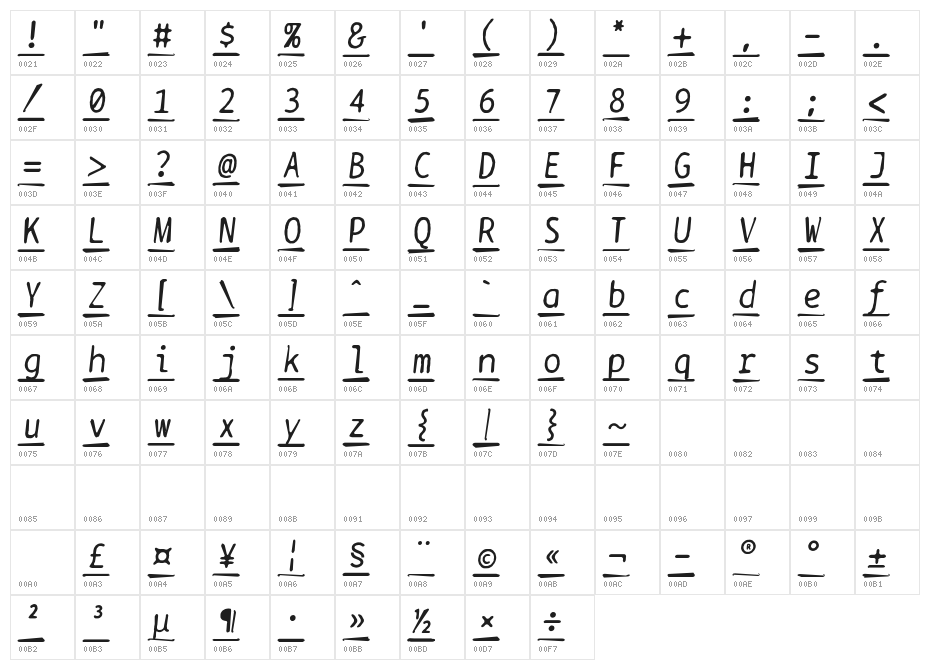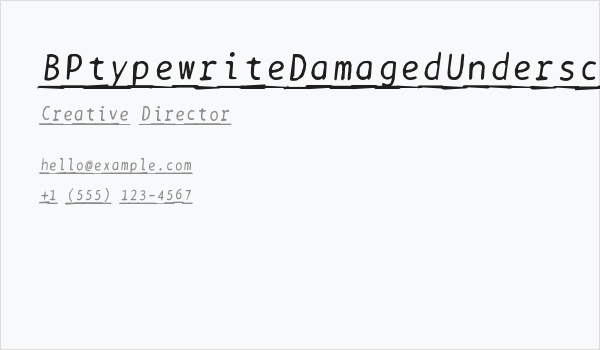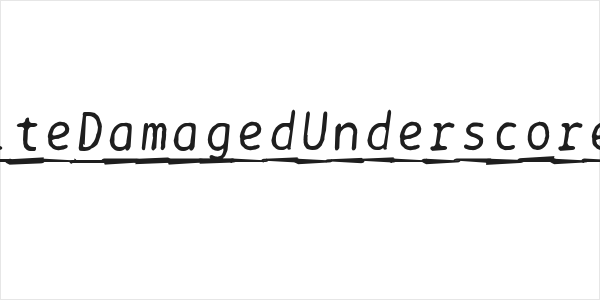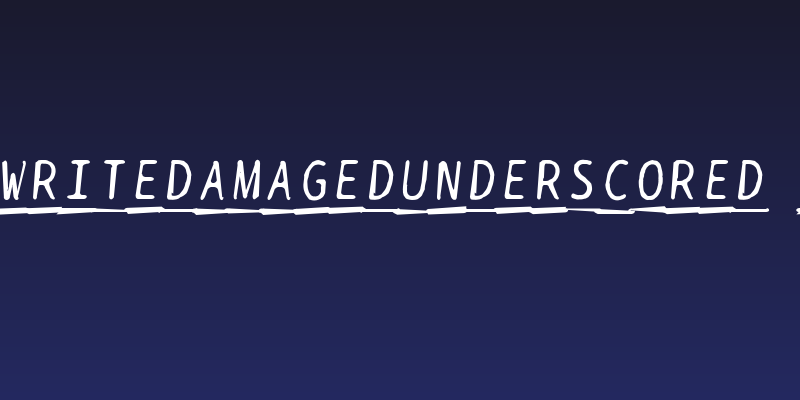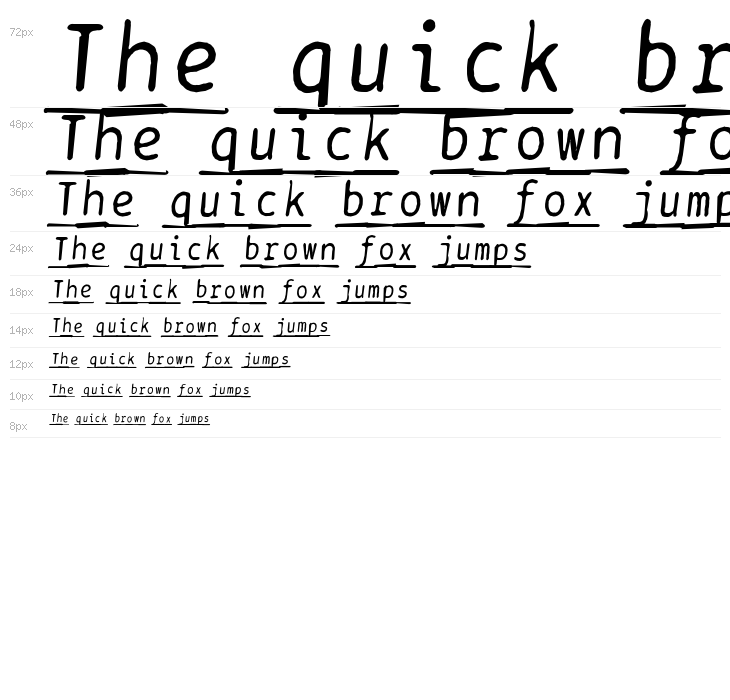
BPtypewriteDamagedUnderscored Italic Font
BPtypewriteDamagedUnderscored Italic Description
This font exudes a vintage typewriter aesthetic, characterized by its monospaced, slightly uneven strokes that mimic the imperfections of old mechanical typewriters. The letters are underscored, adding a unique touch that enhances its retro appeal. The italic style gives it a dynamic and informal feel, while the consistent width of each character maintains readability. The font's slightly distressed appearance suggests a sense of history and nostalgia, making it ideal for projects that aim to evoke a sense of the past. Its distinct style is both charming and functional, suitable for creative and artistic endeavors.
Overall StyleVintage
Use CaseLogos, Headlines, Creative projects
Proposed ProjectsIdeal for retro-themed designs, creative writing projects, vintage posters, and artistic book covers.